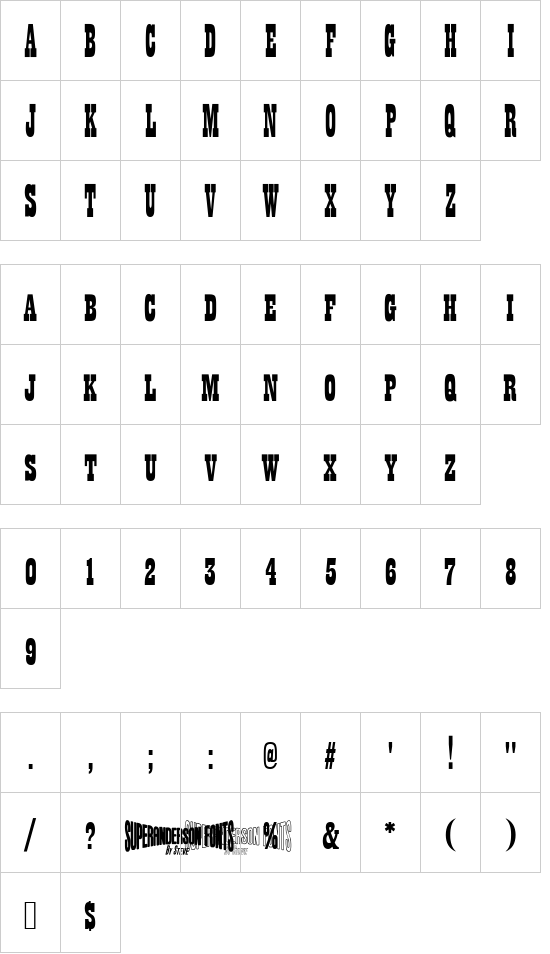
Anderson Thunderbirds Are GO! is a bold themed display font with a retro, adventurous character drawn from classic action serials. The letters are thick and confident with a mid-century swagger, blending blocky strength and a hint of vintage chrome-age styling for a dramatic, energetic feel.
Its punchy style fits fan posters, vintage-styled titles, gaming art, and graphics that want a dramatic, mid-century blast. Anderson Thunderbirds Are GO! is free to download as a TrueType file, and the preview tool lets you type your own text to see how the bold retro letters read in a title or poster before you download and use them.